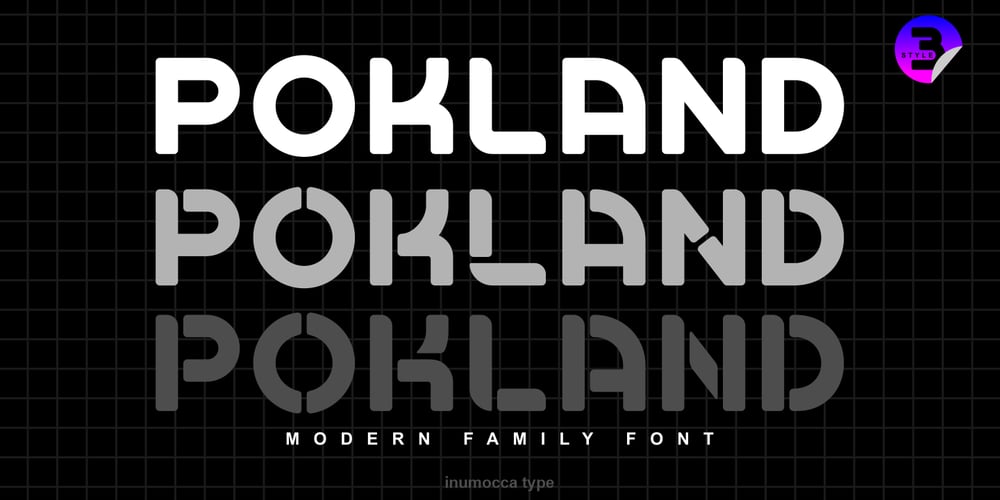
Pokland Font Family was designed by Inu Mocca and published by Inumocca. Pokland contains 3 styles and family package options. POKLAND Modern Family Font, Come with 3 Style, Reguler One, Stencil Two and Stencil Three,Modern Futuristic, Minimalist and unique Glyphs Construction.Inspiration from Synthwave, Mecha, Modern Technology, Sci-fi Movie Poster, science and Space Theme.Really great font to covering your Project, like Lettering, Website Interface, Magazine, Branding, Poster, wedding invitations, Quotes Lettering, Logos, and more your project design.- Unique glyphs- Multilingual Characters- UPPERCASE- Lowercase- Numeric- Symbol- Punctuation Character- Stylistic Alternatesinumocca type Studio